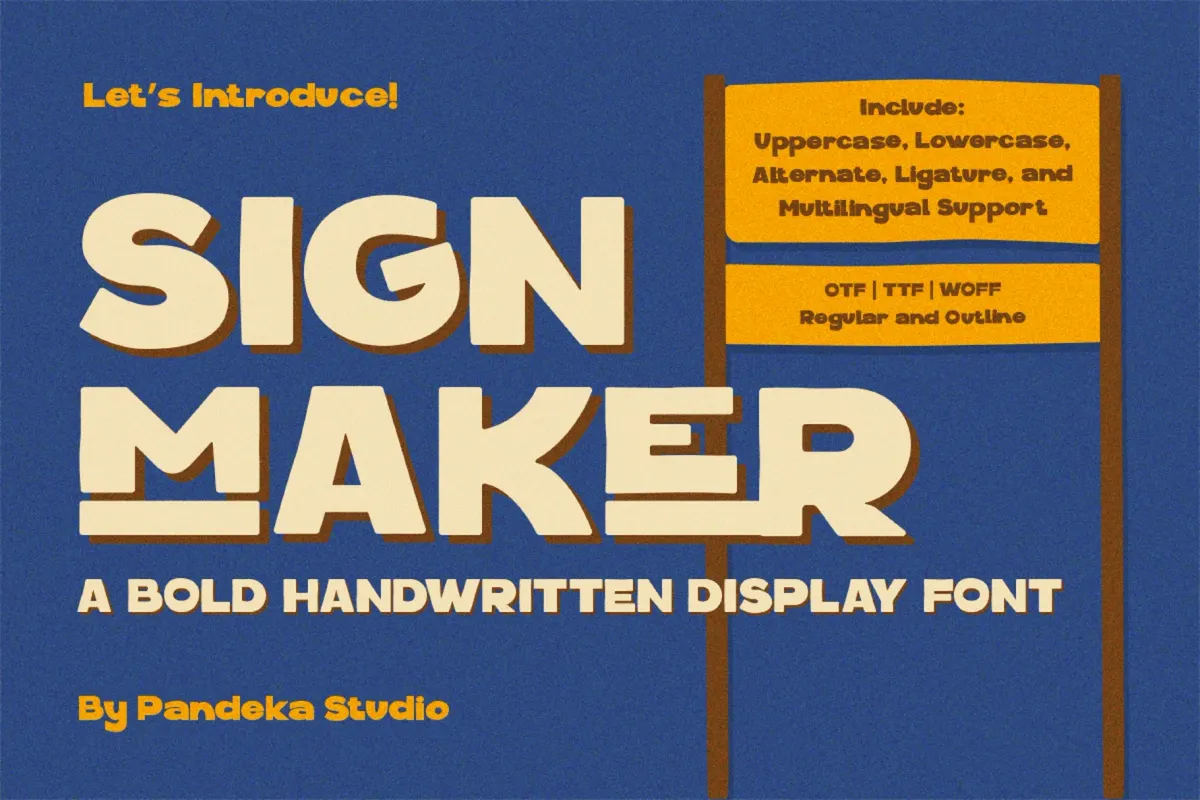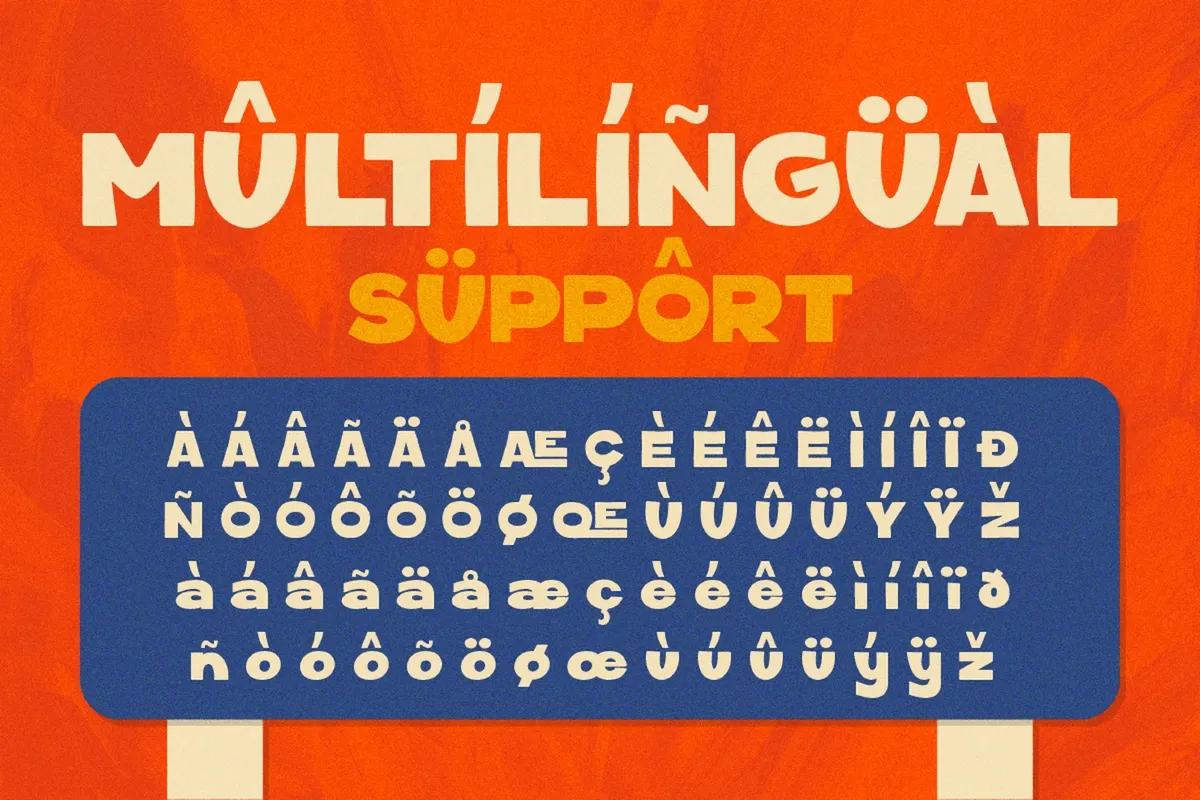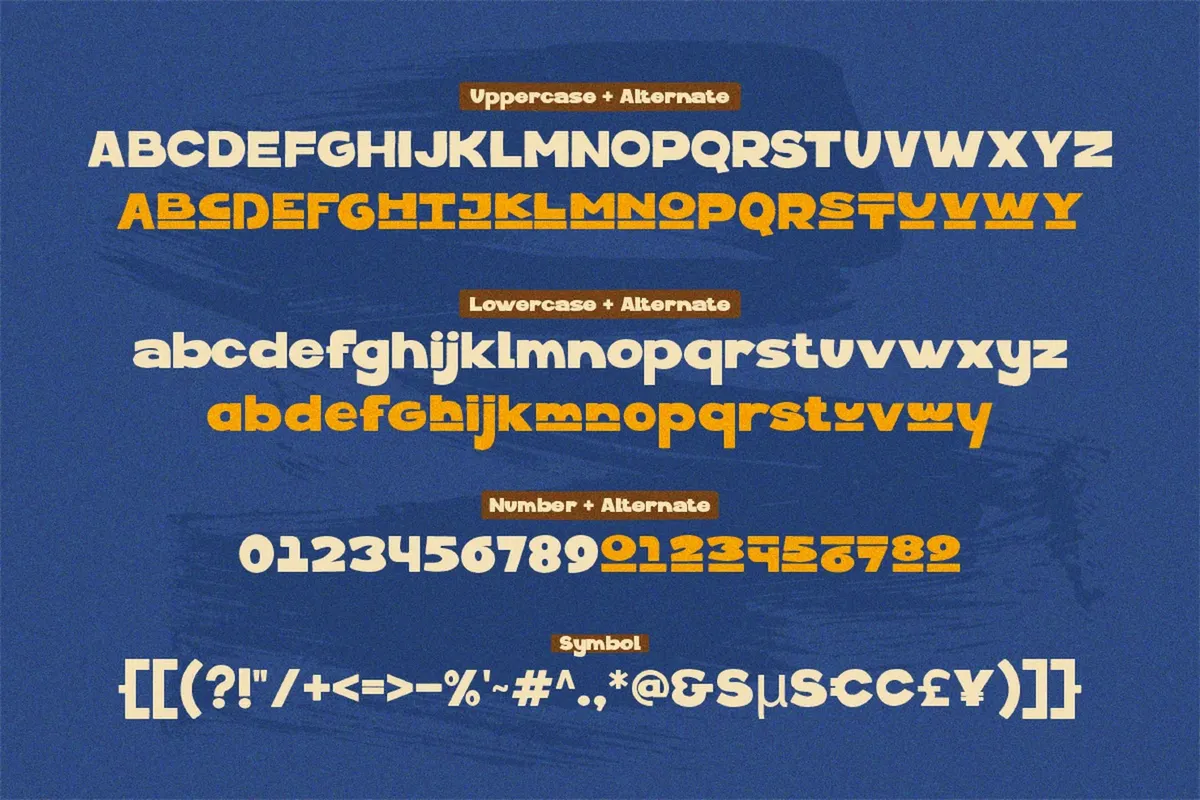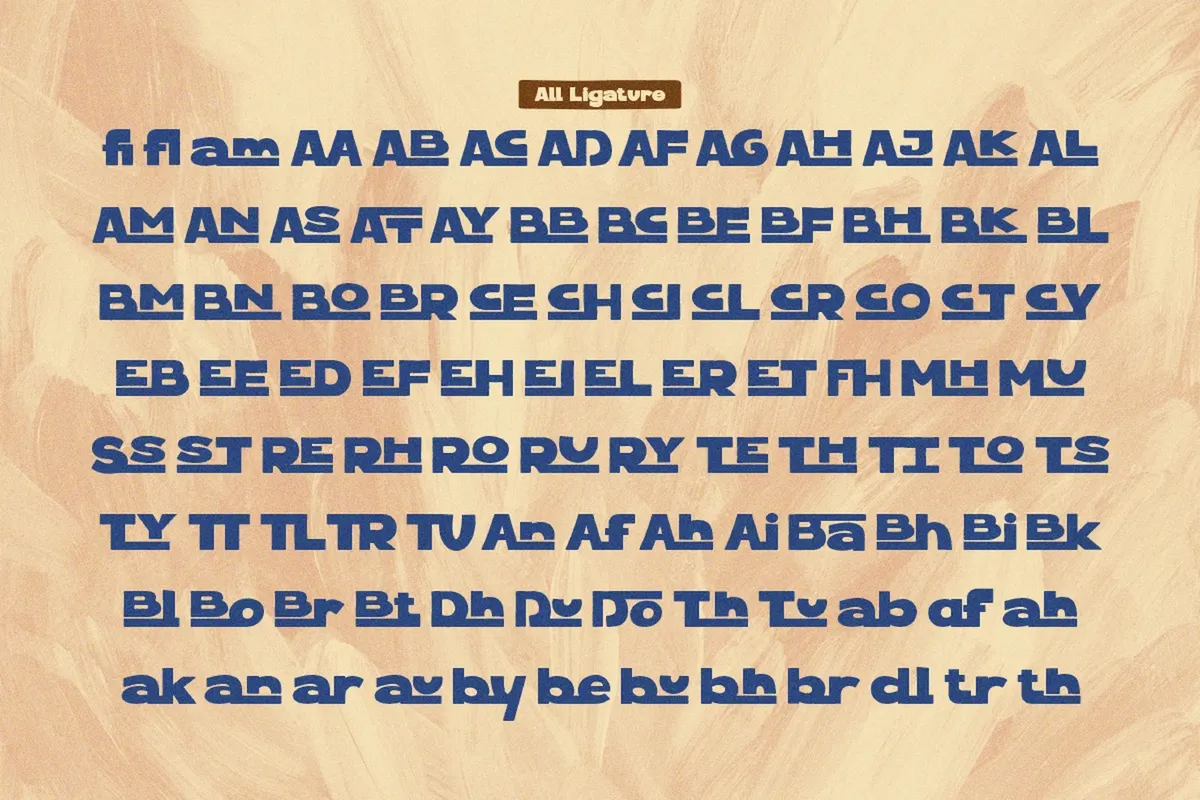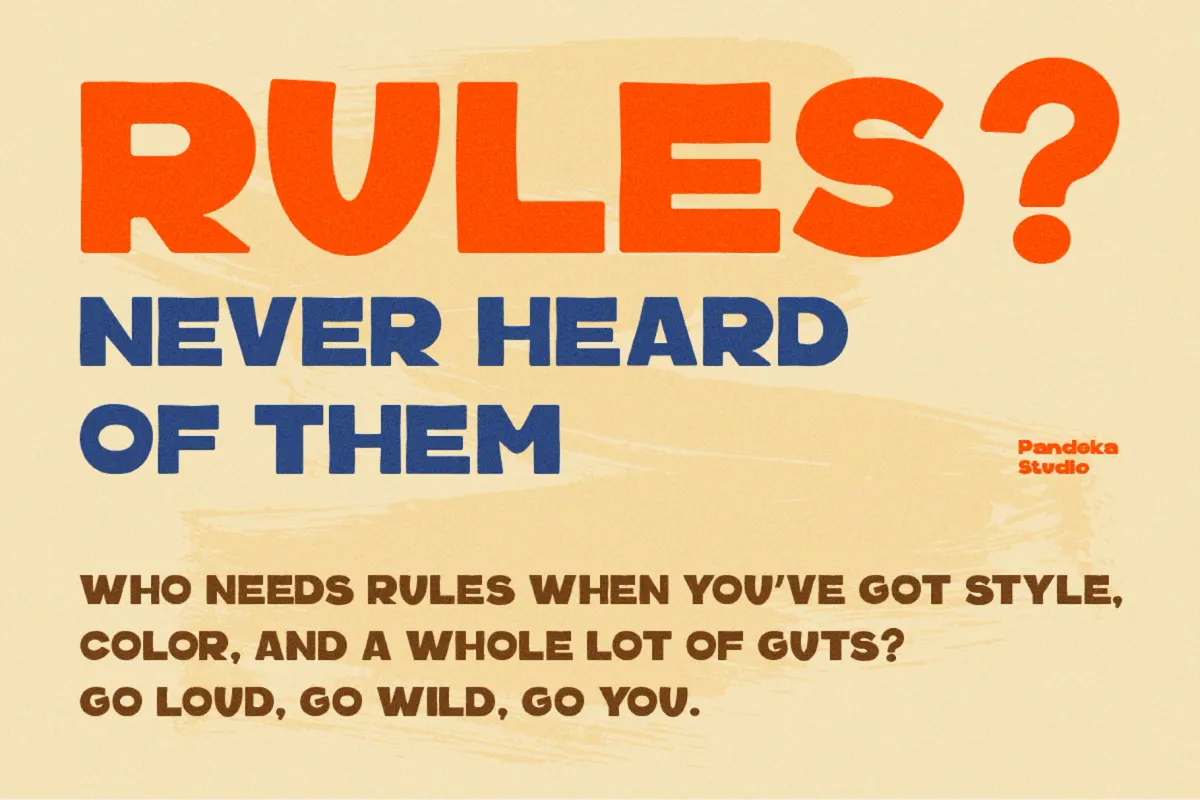
Signmaker - Bold Handwritten Display Font
Signmaker stacks thick, uneven strokes into a bold handwritten display font, with a hand-drawn wobble that keeps every letter feeling drawn rather than typed. Regular and Outline cuts share the same skeleton, so headlines can switch between a solid fill and a hollow, sign-painted version without redrawing anything. Ligatures and stylistic alternates swap in across dozens of letter pairs, breaking up repeated shapes in longer words.
• uppercase & lowercase;
• Regular & Outline styles;
• numerals, punctuation & symbols;
• ligatures & stylistic alternates;
• multilingual support;